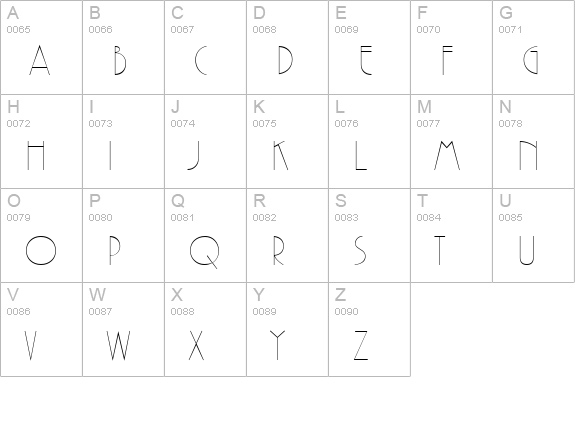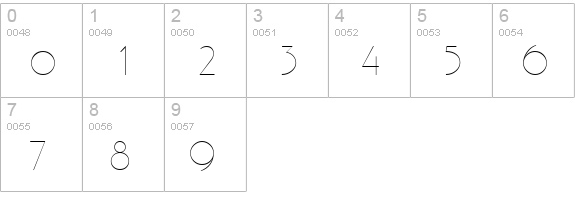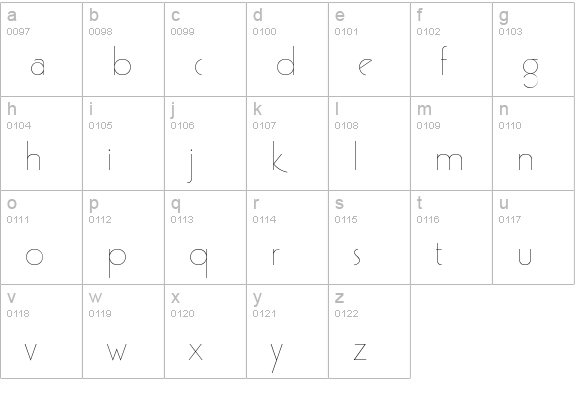
Gatsby Regular Font Details
Gatsby Regular is the standard, neutral variant in the Gatsby typeface family \xE2\x80\x94 well suited to general body text, paragraphs, and standard typographic work.
Gatsby Regular font is a timeless and elegant typeface that exudes sophistication and class. With its clean lines and classic design, this font is perfect for adding a touch of refinement to any project. Whether you're designing a wedding invitation, creating a logo, or crafting a stylish flyer, Gatsby Regular is sure to make a statement. The best part? Gatsby Regular is available for free download at FontsMarket.com. This means you can add this exquisite font to your collection without breaking the bank. So why wait? Elevate your designs with the luxurious charm of Gatsby Regular today!